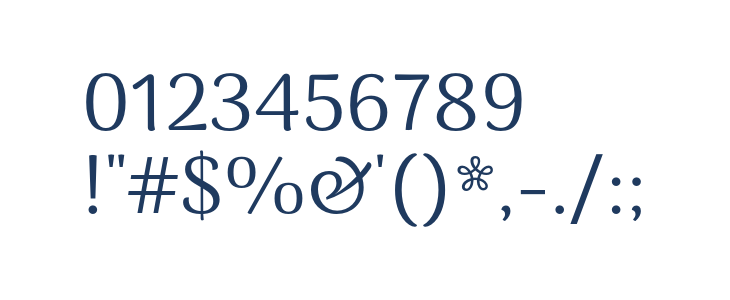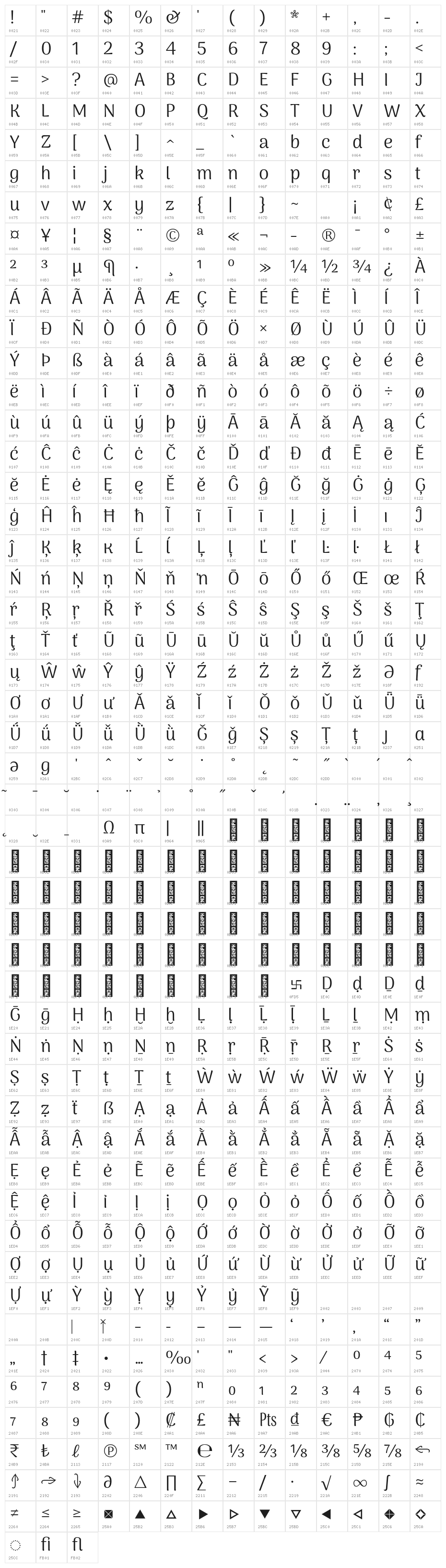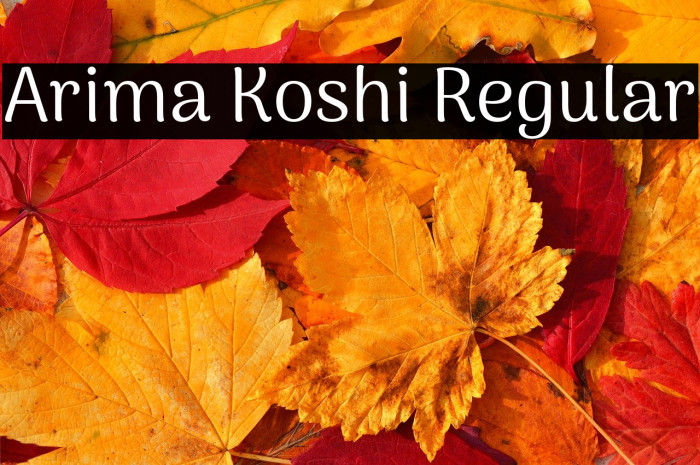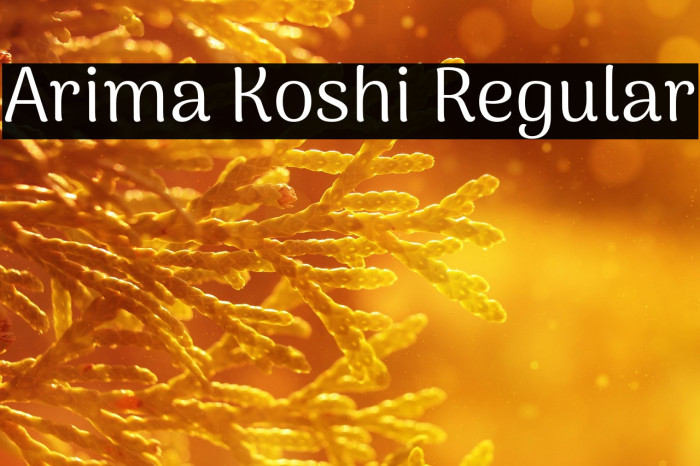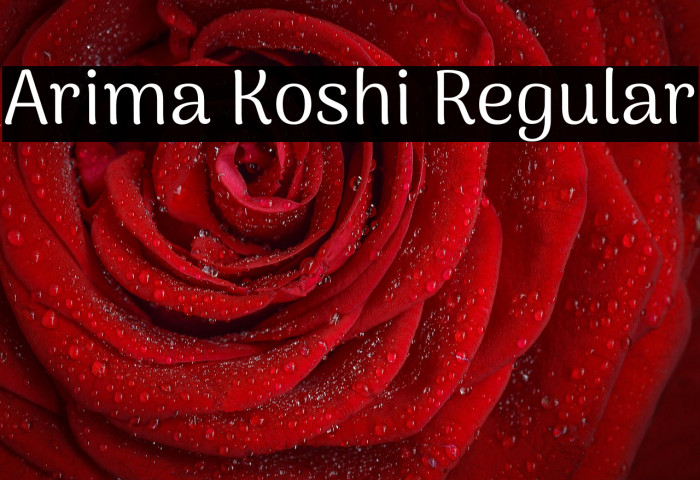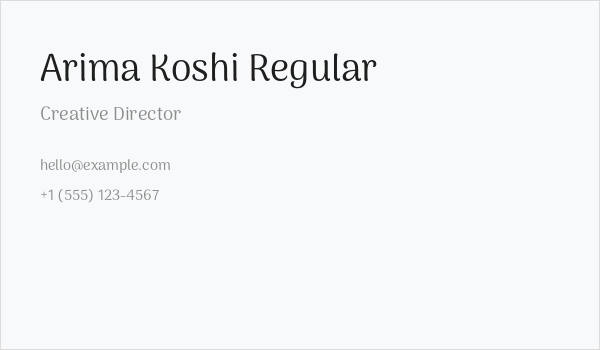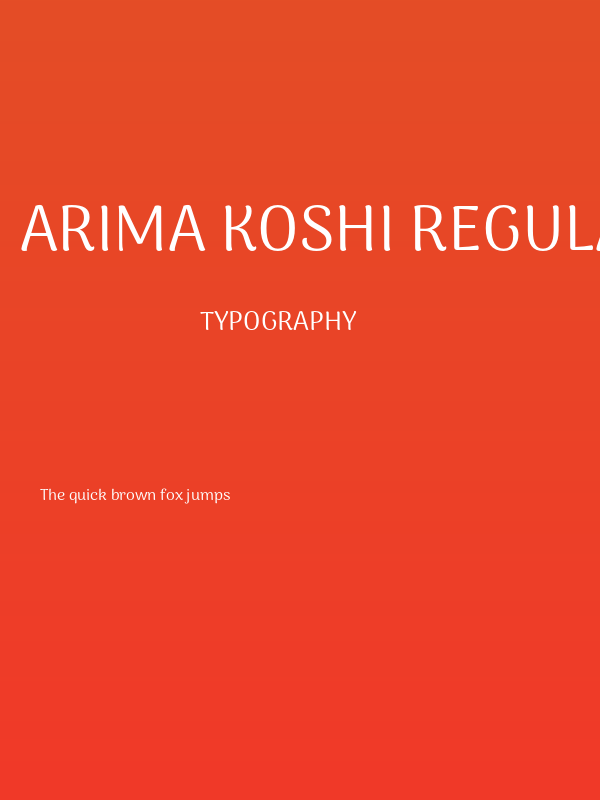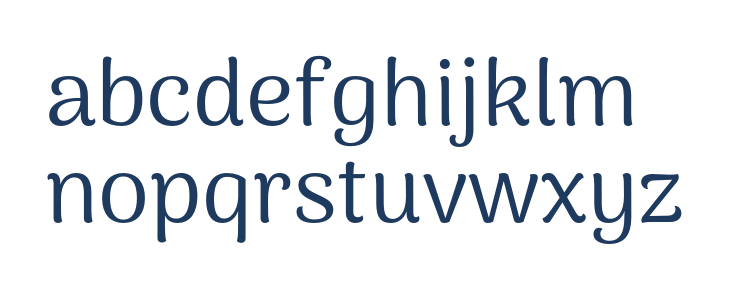
Arima Koshi Regular Font
Arima Koshi Regular Description
This font features a playful and friendly design with rounded edges and a slightly whimsical appearance. The characters are well-balanced, offering a harmonious blend of curves and straight lines. The uppercase letters are bold and prominent, while the lowercase letters maintain a consistent flow, making it easy to read. The numerals are clear and distinct, complementing the overall style. Special characters are thoughtfully designed, adding to the font's versatility. This font is suitable for a variety of applications, from digital to print, due to its legibility and unique charm.
| Proposed Projects | Ideal for children's books, playful branding, casual invitations, and creative digital content. |